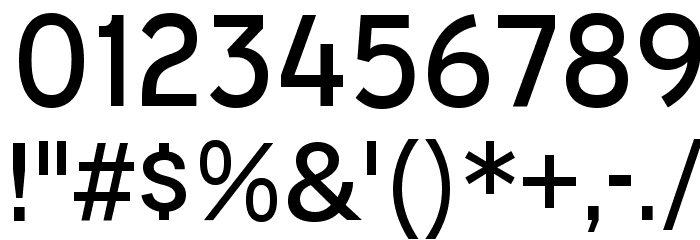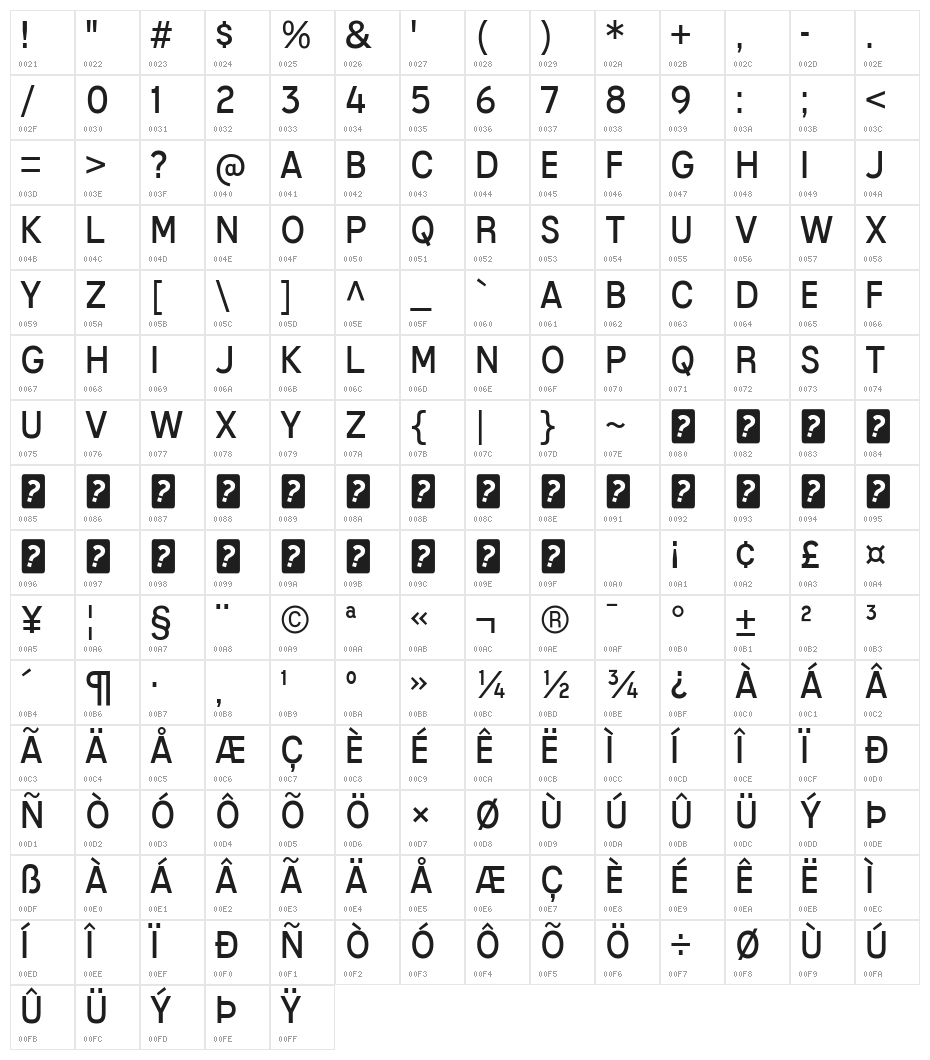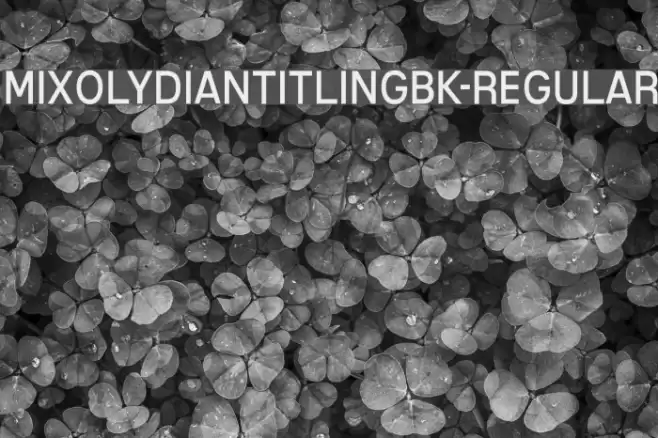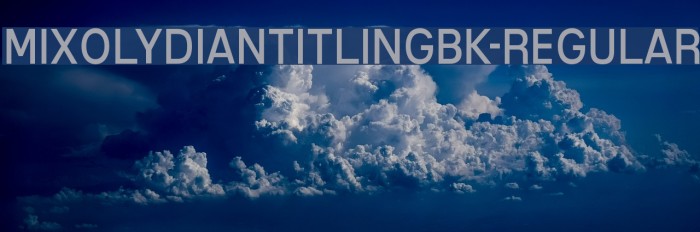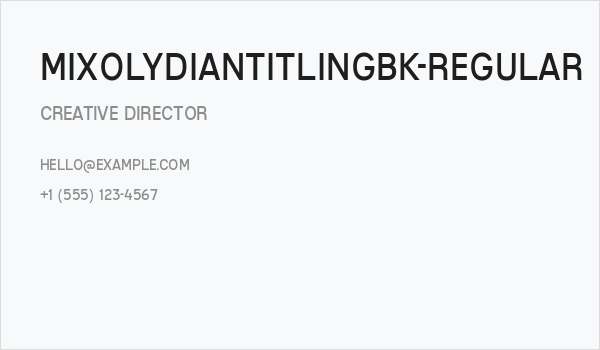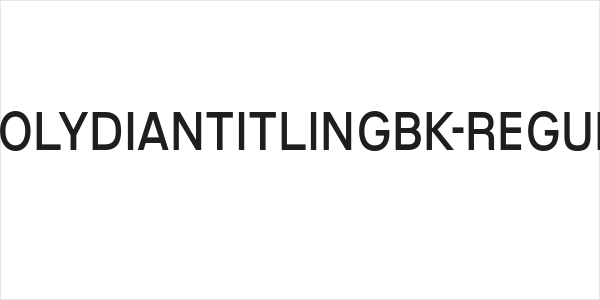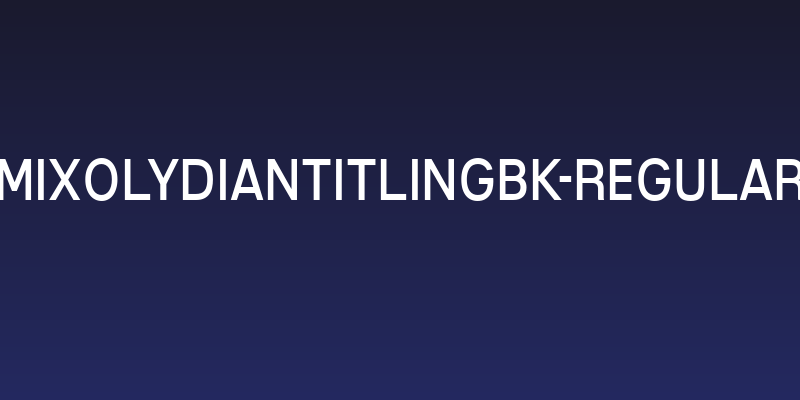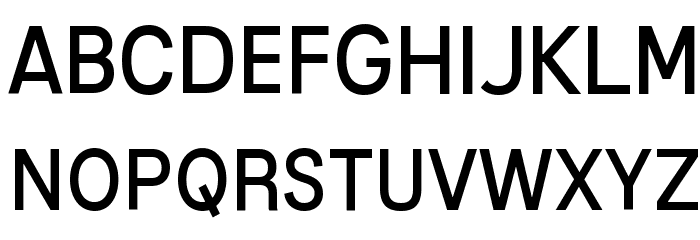
MixolydianTitlingBk-Regular Font
MixolydianTitlingBk-Regular Description
This typeface features a clean and modern sans-serif design, characterized by its bold and uniform stroke weight. The characters are well-proportioned, with a consistent height and width that contribute to its readability. The uppercase letters are strong and assertive, while the lowercase letters maintain a balanced and harmonious appearance. The numerals are clear and distinct, making them suitable for both display and body text. The special characters are designed with the same attention to detail, ensuring a cohesive look across all glyphs. This font is versatile, making it ideal for a variety of design applications.
| Proposed Projects | Ideal for branding, advertising, headlines, and digital interfaces due to its clarity and modern appeal. |